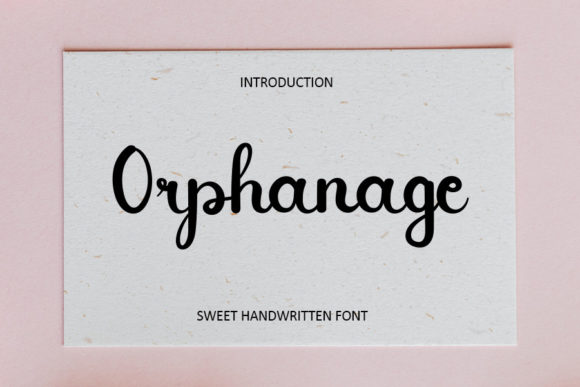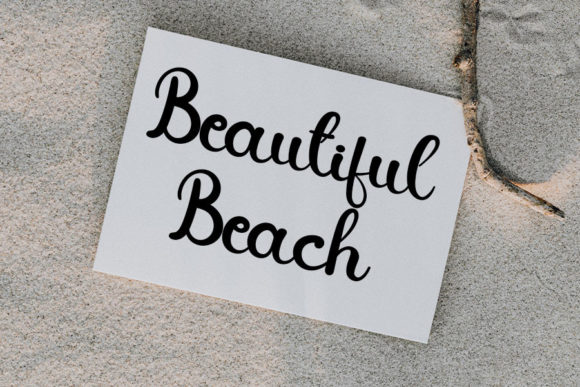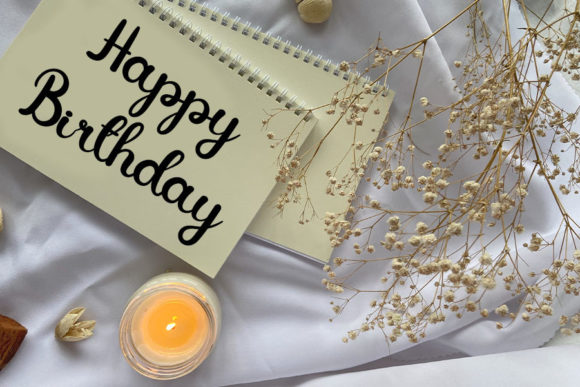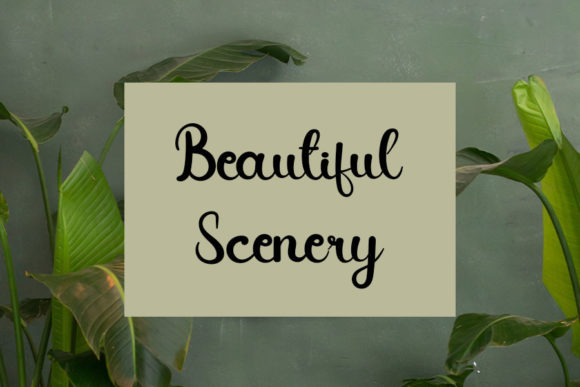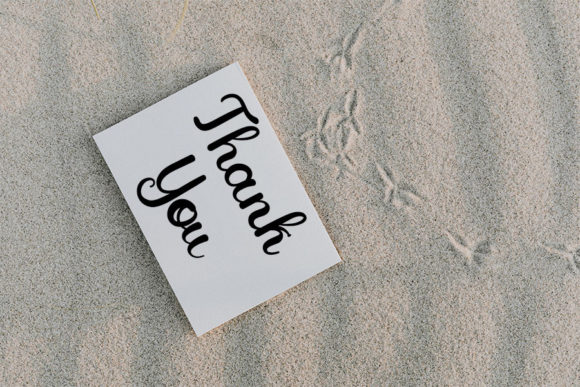
About Orphanage Font
Orphanage is a beautiful and light handwritten font with a unique feel and a stunning impact. It will add a luxury spark to any design project that you wish to create!